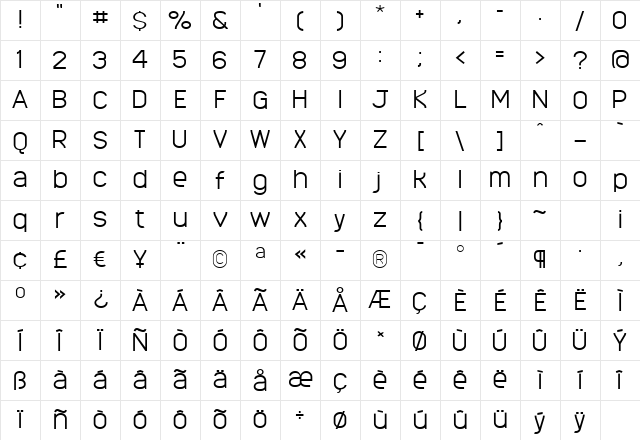
MonarkLight is a composed and adaptable typeface that performs quietly and consistently across a wide range of design contexts. Its slender proportions lend an understated elegance to any composition.